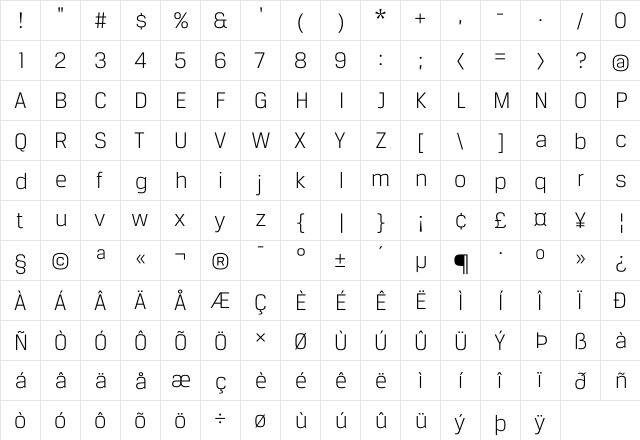
BreuerText Light
Design Context for BreuerText Typeface
BreuerText takes a measured approach to typography — its balanced proportions and neutral character make it a reliable workhorse for both digital and print work. Its slender proportions lend an understated elegance to any composition.